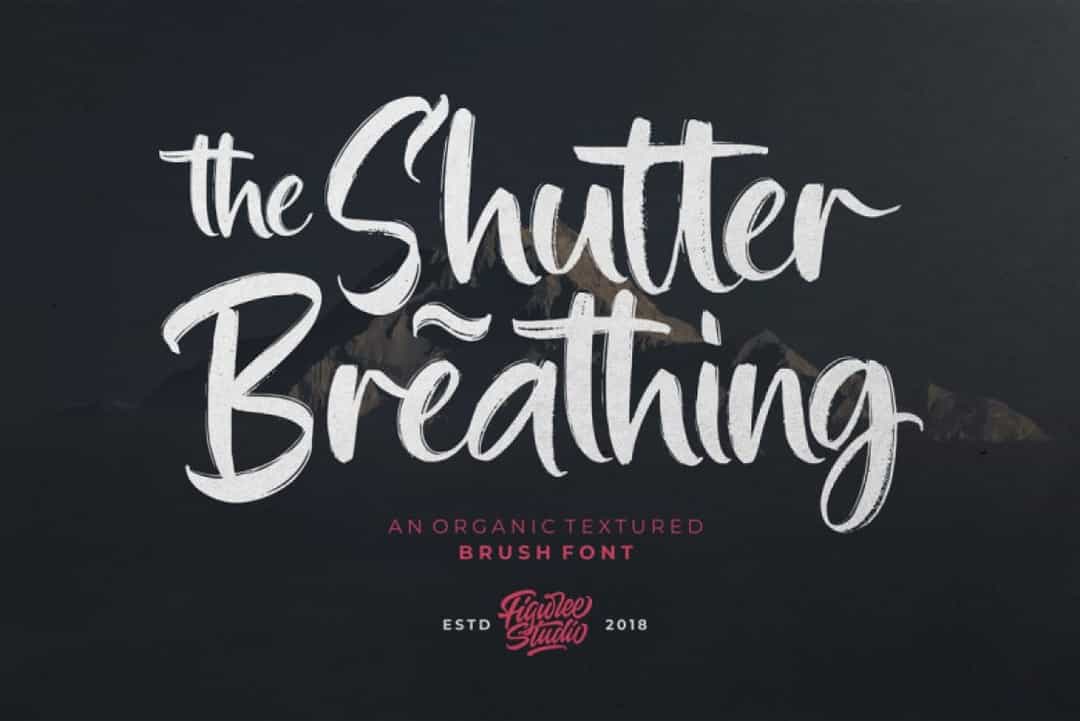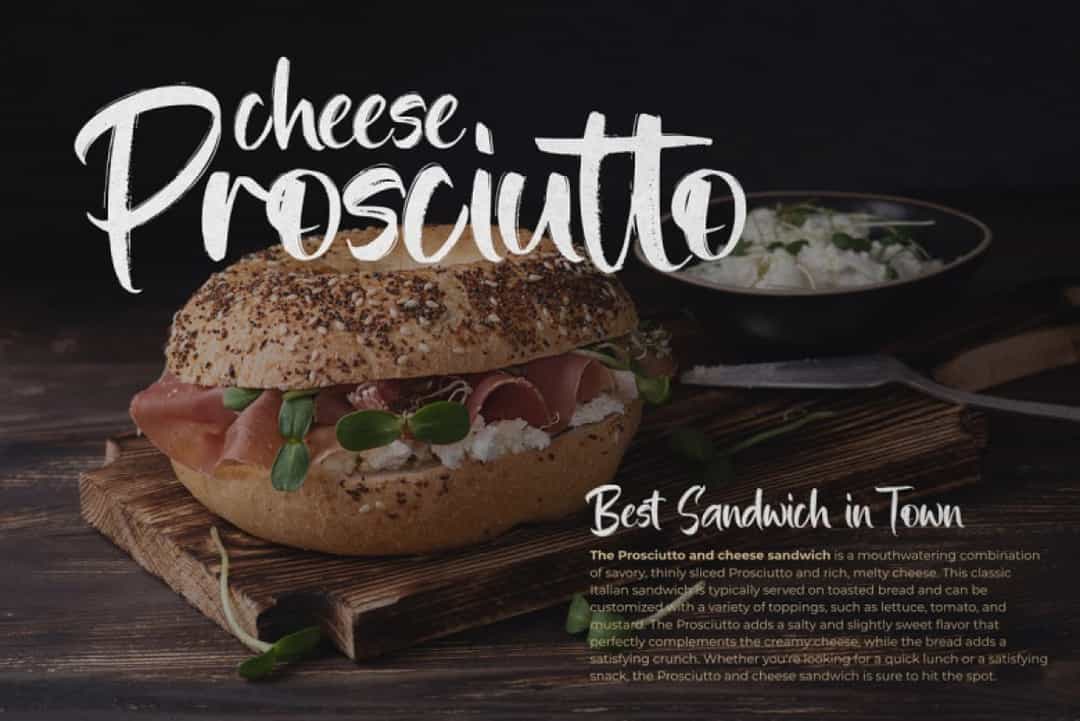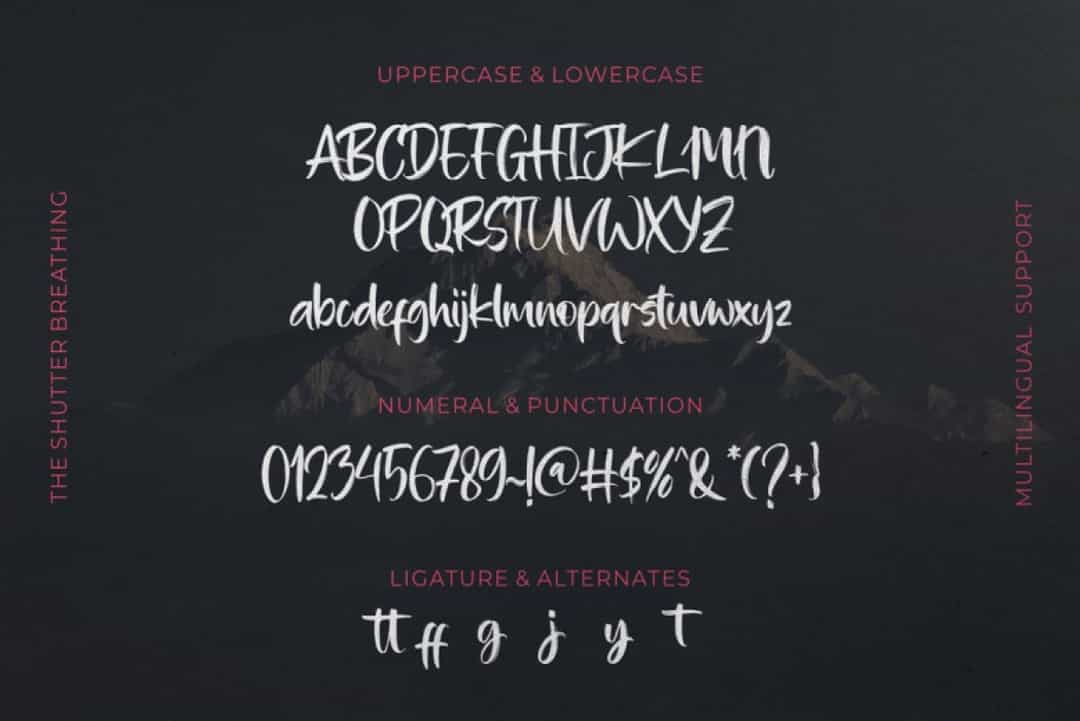
Discover The Shutter Breathing Font, part of the Brush collection—a versatile and unique font perfect for adding a personal touch to your projects. Download it for free and enjoy crafting designs with style, from invitations to social media posts. This font is available exclusively for personal use, giving you the freedom to create without limits. Unlock your creativity with The Shutter Breathing Font today!
Shutter Breathing, our latest font release, brings artistic projects to life with its beautiful natural brush font design and authentic appearance. Perfect for projects which require individuality and distinctiveness! Shutter Breathing font is versatile and suitable for a range of marketing, branding, social media posts, personal projects and personal use – everything from marketing and branding campaigns to posts on social media or personal projects. Created by our experienced creators, the hand-drawn designs and natural brush strokes give it an authentic yet natural appearance, setting it apart from other fonts.